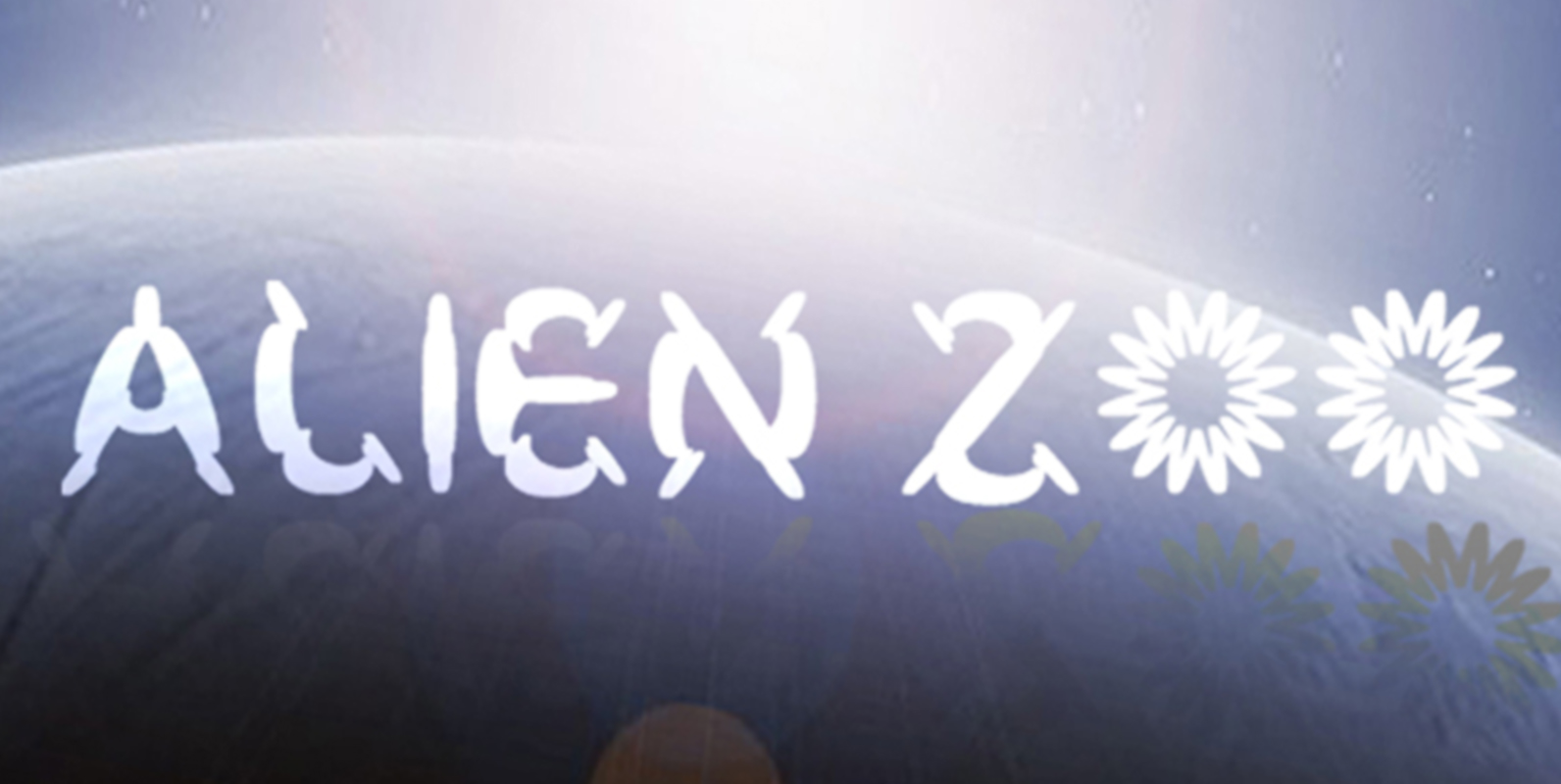
Alien Zoo Font Fonts Free Downloads Free download of groutpix flow alien font. released in 2023 by ffeeaarr and licensed for personal and commercial use. use our font generator to create a custom image that you can download. Explore the depths of the cosmos with our free alien fonts! create unique designs with extraterrestrial flair and add some otherworldly style to your projects.
Alien Zoo Font Fonts Free Downloads Download groutpix flow alien font for pc mac for free, take a test drive and see the entire character set. moreover, you can embed it to your website with @font face support. Download alien zoo demo regular font. alien zoo demo regular by alien zoo demo a decorative font with alien inspired, abstract letterforms. this font features a highly decorative and abstract design, with each letter incorporating unique, alien like elements. The alien zoo demo regular font includes 32 carefully crafted characters. preview your text instantly on ffonts to see if it fits your design. Download 65 alien fonts. alien fonts are typefaces designed to feel non human, extra terrestrial, otherworldly, or like they come from an advanced alien civilization.
Download Alien Zoo Demo Font Dafonttop The alien zoo demo regular font includes 32 carefully crafted characters. preview your text instantly on ffonts to see if it fits your design. Download 65 alien fonts. alien fonts are typefaces designed to feel non human, extra terrestrial, otherworldly, or like they come from an advanced alien civilization. This font was created by benjamin a melville and features a full upper and lower case alphabet including 0 9 and some punctuation, please see glyphs list for all characters you will be able to work with. Alien zoo font, a blend of lost history and sci fi appeal. perfect for design that defies convention. Discover zoo themed fonts for your creative projects. explore playful, animal inspired fonts perfect for designs that capture the spirit of the wild!. Alien by mc creative in fancy > destroy 134,788 downloads (3 yesterday) 100% free download alien.ttf first seen on dafont: before 2005.
Download Alien Zoo Demo Font Fontsme This font was created by benjamin a melville and features a full upper and lower case alphabet including 0 9 and some punctuation, please see glyphs list for all characters you will be able to work with. Alien zoo font, a blend of lost history and sci fi appeal. perfect for design that defies convention. Discover zoo themed fonts for your creative projects. explore playful, animal inspired fonts perfect for designs that capture the spirit of the wild!. Alien by mc creative in fancy > destroy 134,788 downloads (3 yesterday) 100% free download alien.ttf first seen on dafont: before 2005.